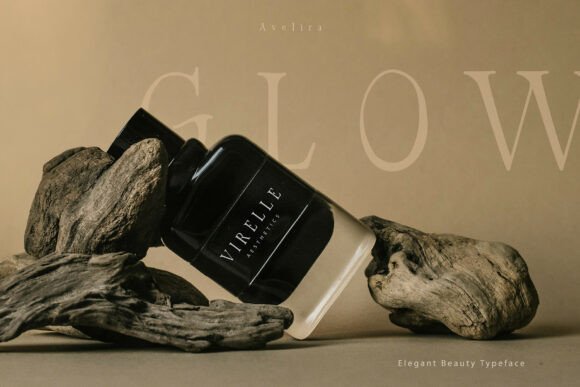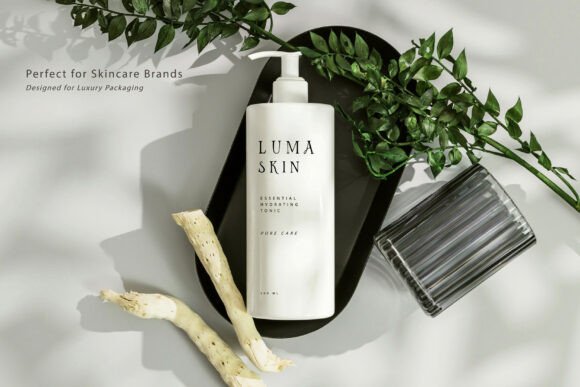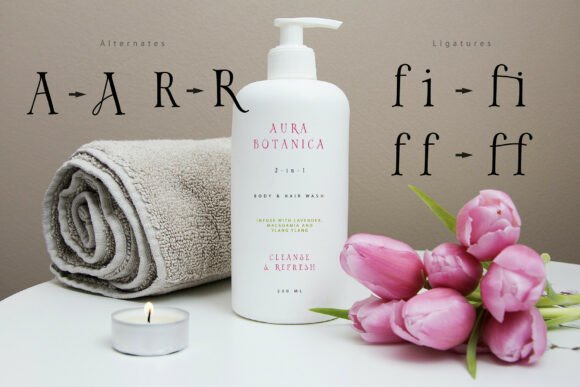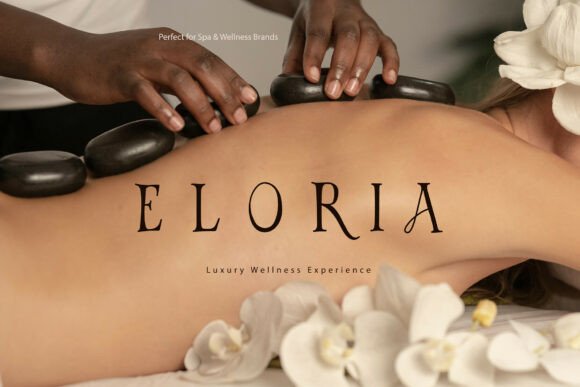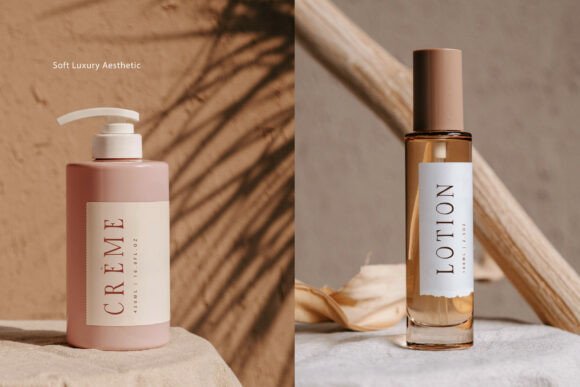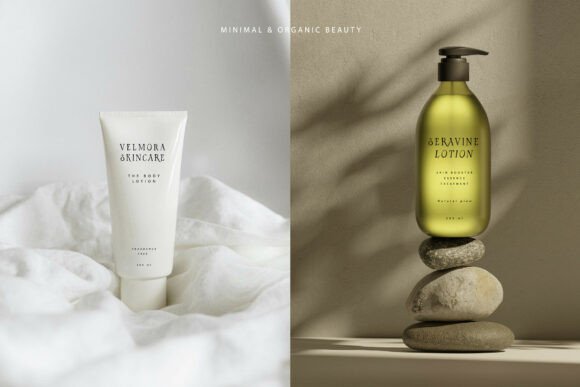
Introducing Avelira Font: Elevate Your Luxury Beauty Branding and Editorial Design
In the world of luxury beauty branding and sophisticated editorial design, typography plays a crucial role in conveying elegance, refinement, and high-end quality. Avelira Font is a stunning, high-contrast serif typeface specifically crafted to meet the demands of premium skincare packaging, boutique perfume labels, spa identities, and minimalist cosmetic campaigns. With its unique blend of delicate curves and refined serif structures, Avelira embodies a timeless, feminine aesthetic that exudes luxury and sophistication.
The Inspiration Behind Avelira Font
Avelira Font draws inspiration from the finest examples of luxury beauty branding, where attention to detail and a sense of refinement are paramount. The font’s creator sought to distill the essence of high-end skincare packaging, boutique perfume labels, and spa identities, where elegance and sophistication are essential. The result is a typeface that combines the best of classic serif design with modern sensibilities, yielding a font that feels both soft and luxurious, clean and modern.
Design Characteristics of Avelira Font
Avelira Font boasts a range of design characteristics that make it an ideal choice for luxury beauty branding and editorial design. Its high-contrast serif structure creates a sense of drama and elegance, while its delicate curves add a touch of femininity and sophistication. The font’s refined serif structures ensure a high level of legibility, even at smaller sizes, making it perfect for use in a variety of applications, from logos and packaging to social media branding and marketing materials.
Key Features of Avelira Font
- Elegant high-contrast serif: Avelira’s distinctive serif structure creates a sense of luxury and refinement.
- Delicate curves: The font’s delicate curves add a touch of femininity and sophistication.
- Refined serif structures: Avelira’s serif structures ensure a high level of legibility, even at smaller sizes.
- Timeless feminine aesthetic: Avelira’s design combines classic and modern elements to create a timeless, feminine look.
- Strong visual personality: The font’s unique character details ensure a strong visual personality across both large headlines and elegant brand presentations.
Use Cases for Avelira Font
Avelira Font is an incredibly versatile typeface, suitable for a wide range of applications where luxury and sophistication are essential. Some of the ideal use cases for Avelira include:
- Logos and branding: Avelira’s elegant design makes it perfect for luxury beauty brands seeking to establish a high-end identity.
- Packaging design: The font’s refined serif structures and delicate curves make it ideal for premium skincare packaging, boutique perfume labels, and other luxury beauty products.
- Social media branding: Avelira’s strong visual personality ensures a consistent, high-end look across social media platforms.
- Magazines and editorial design: The font’s classic, sophisticated design makes it perfect for use in magazines, editorials, and other high-end publications.
- Websites and online marketing: Avelira’s clean, modern design ensures a seamless user experience across digital platforms.
- Invitations and event branding: The font’s elegant design makes it perfect for high-end events, weddings, and other sophisticated occasions.
- Product photography: Avelira’s refined serif structures and delicate curves add a touch of luxury to product photography.
- Premium marketing materials: The font’s strong visual personality ensures a high-end look across marketing materials, from brochures to business cards.
| Font Name | Avelira Font |
| Author | ChekArt |
Avelira Font is a stunning, high-contrast serif typeface that embodies the essence of luxury beauty branding and sophisticated editorial design. With its unique blend of delicate curves and refined serif structures, Avelira creates a timeless, feminine aesthetic that exudes elegance and refinement. Whether you’re a designer, brand owner, or craftsperson, Avelira Font is an excellent choice for anyone seeking to elevate their luxury beauty branding and editorial design.